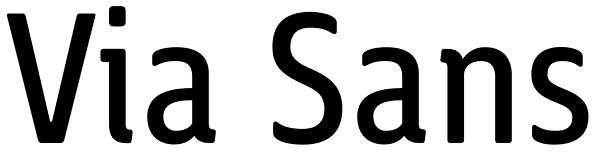
Via Sans
Via sans is a font inspired by classics like Steile Futura and Din 1451, with neo-humanist characteristics. It was designed as a font for fast reading from a distance, which saves horizontal space in the text composition, making it a very good...